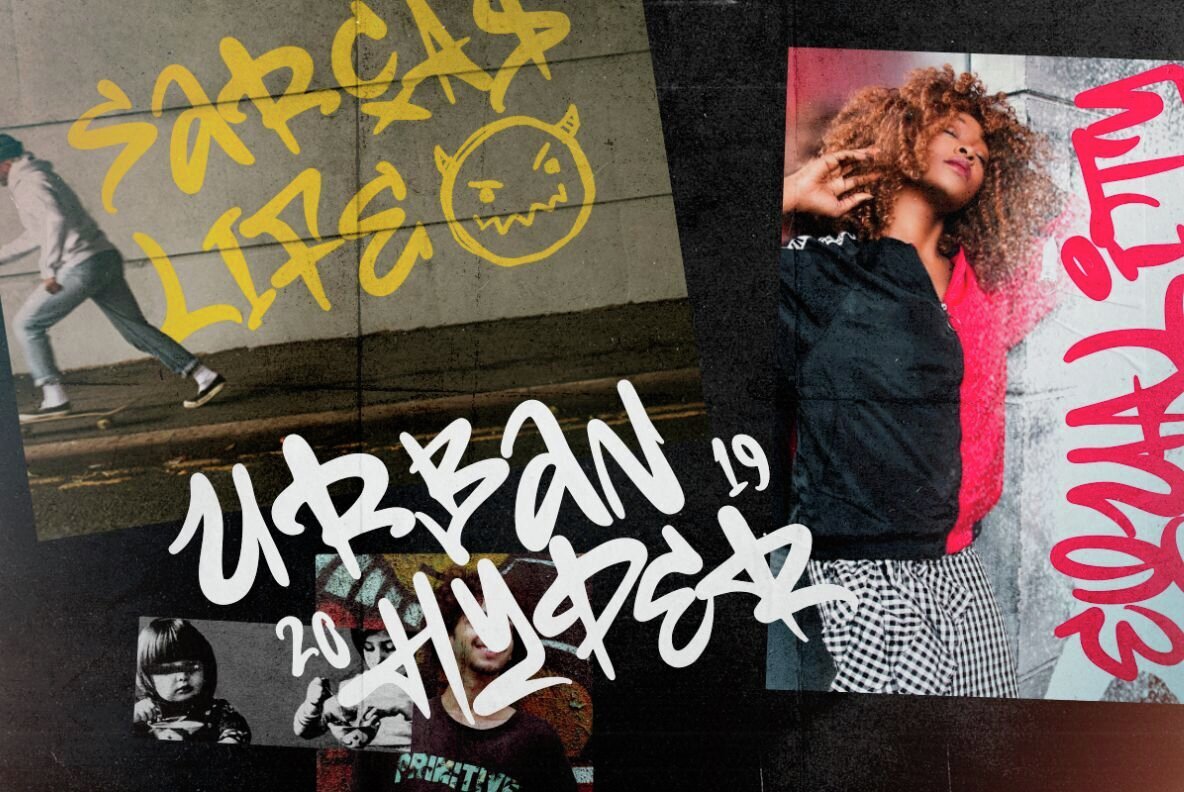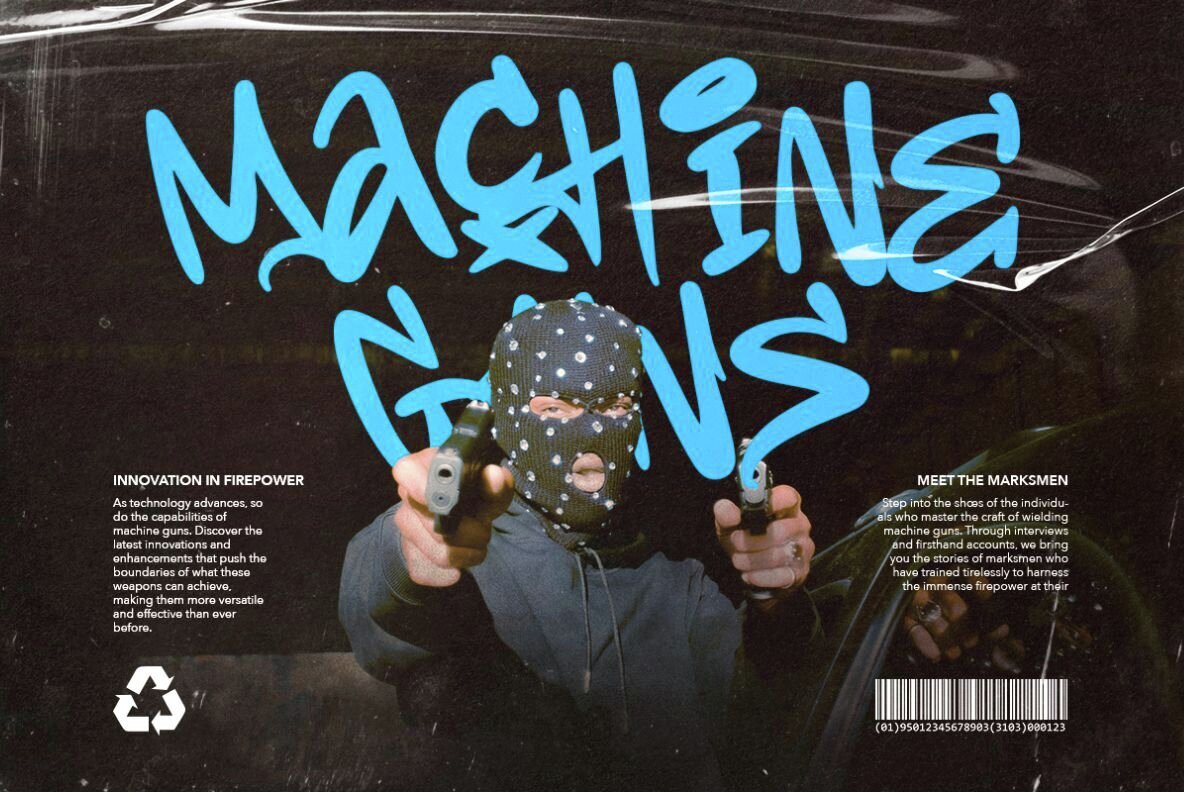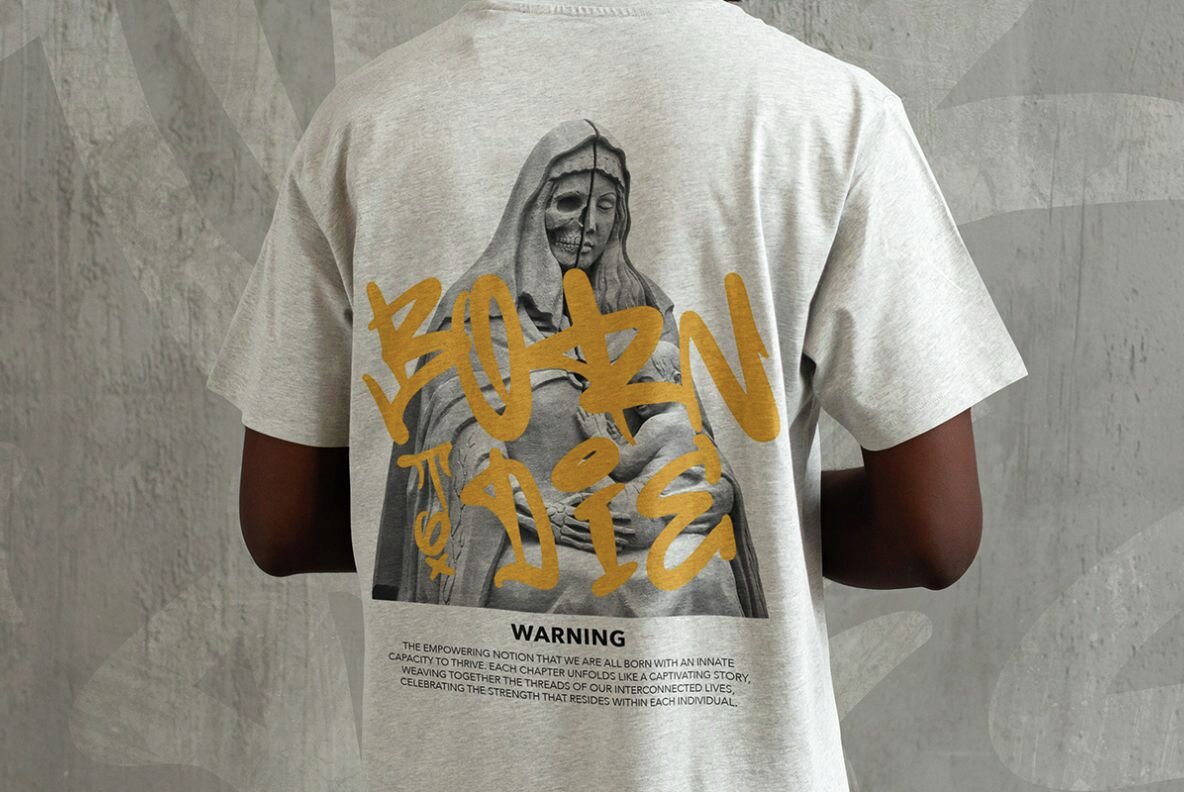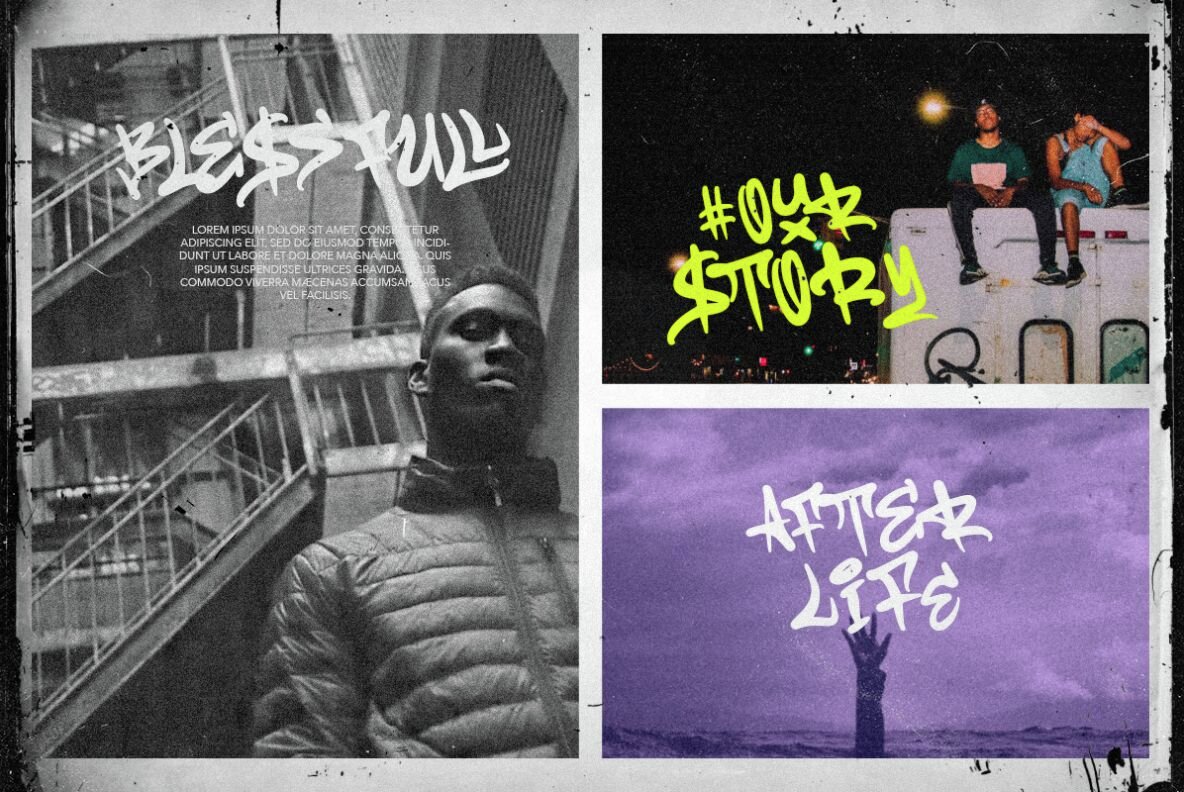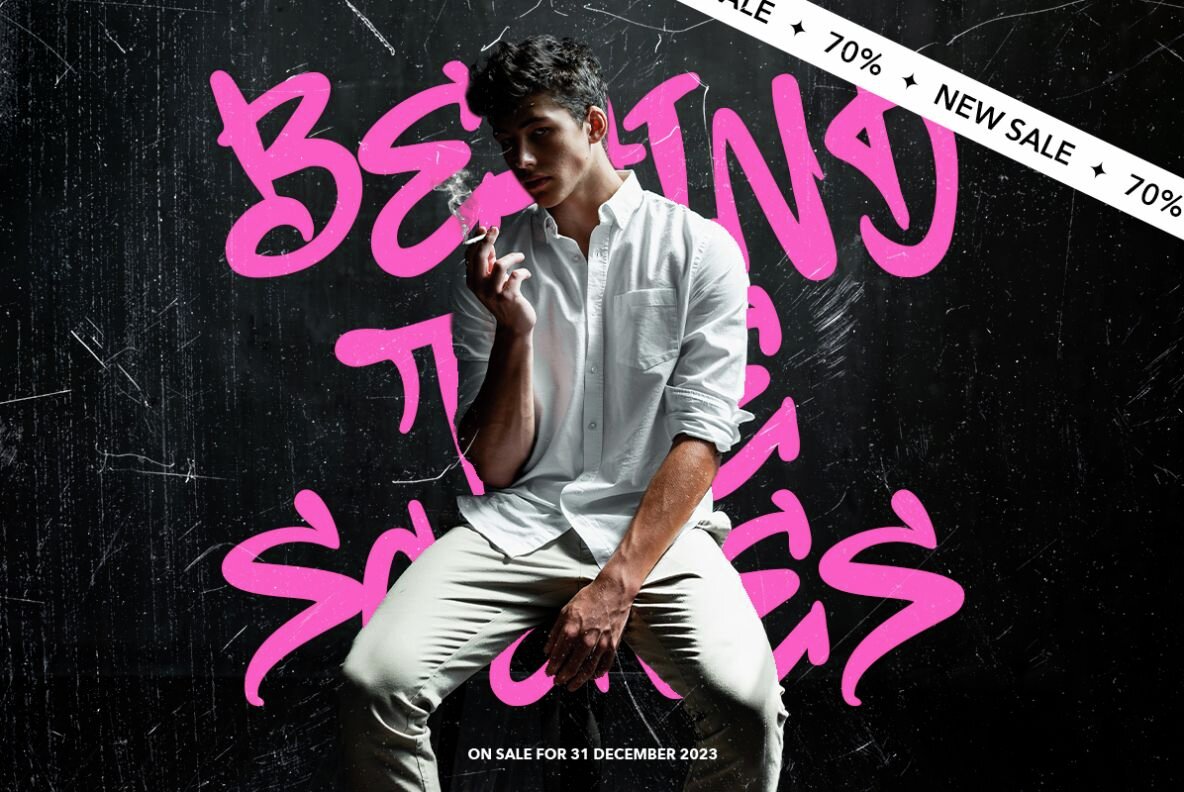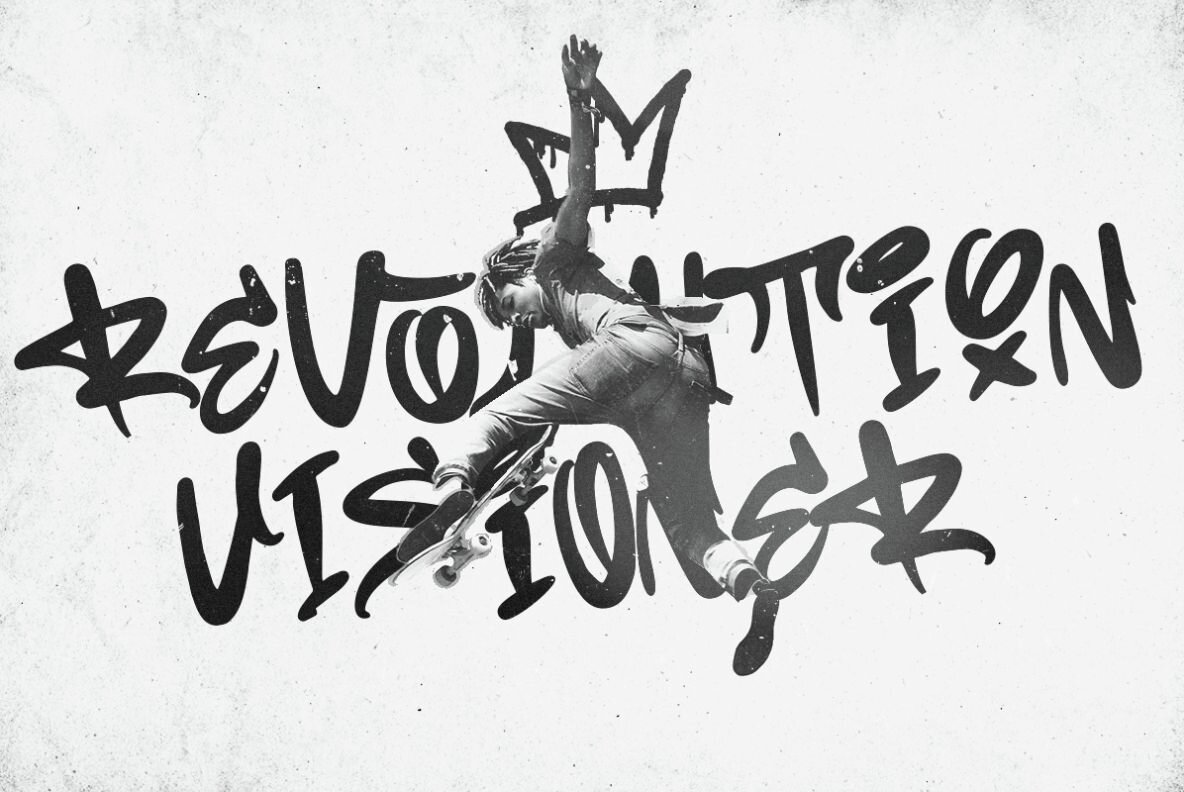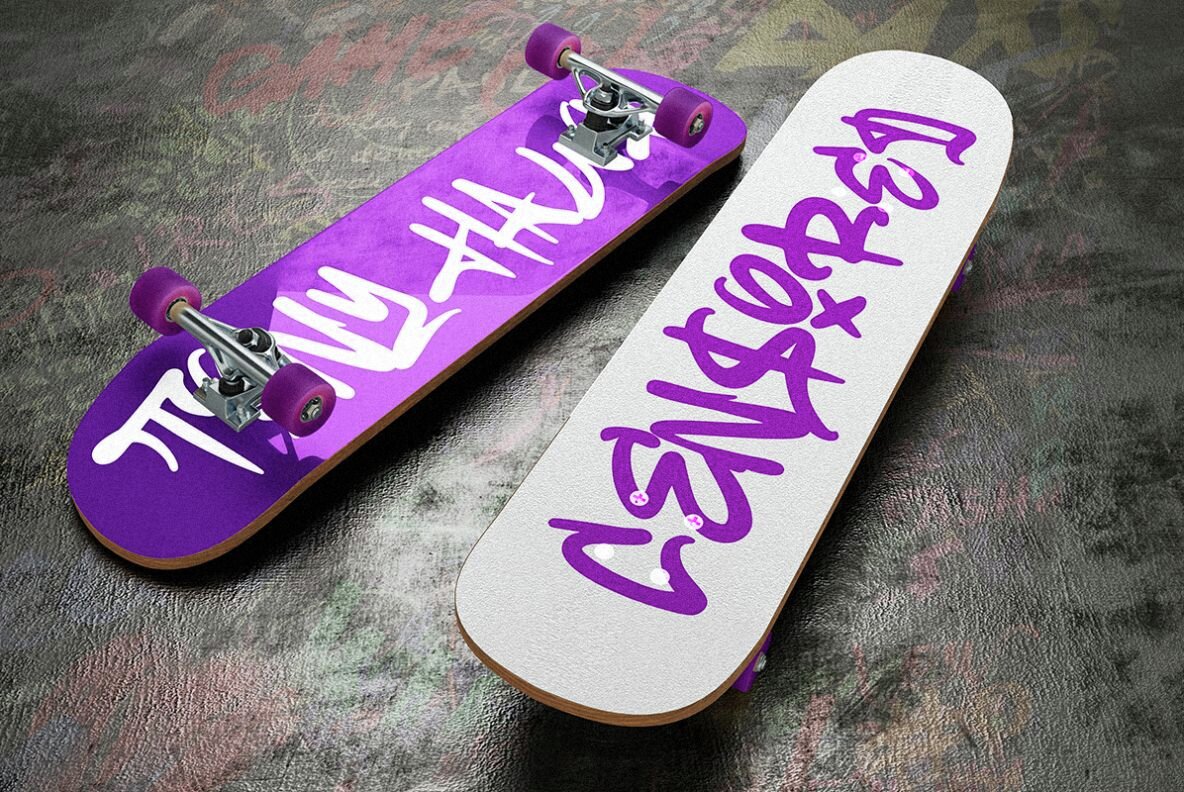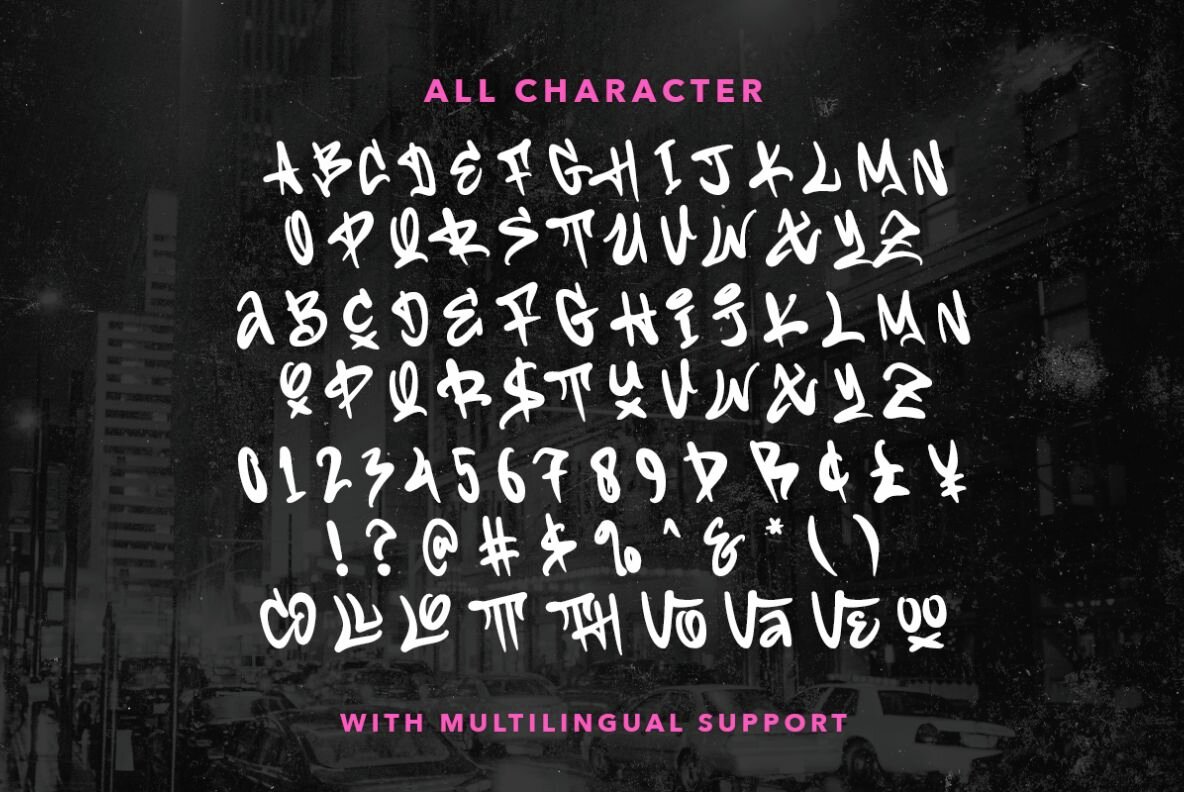
Black Discord Font
Black Discord Regular
Black Discord is a graffiti-style font that embodies the essence of street art, offering a dynamic and expressive touch to any typographic project. Ideal for designs that aim to convey an edgy, urban atmosphere or create a bold statement, this font brings authenticity and flair. Its unique ligatures contribute to a handmade appearance, enhancing the overall visual impact of your work.
Additionally, Black Discord supports multiple languages, making it versatile for a global audience. Whether you're working on a poster, logo, or any creative project, this font will deliver a striking and distinctive look that captures attention and conveys the raw energy of graffiti.